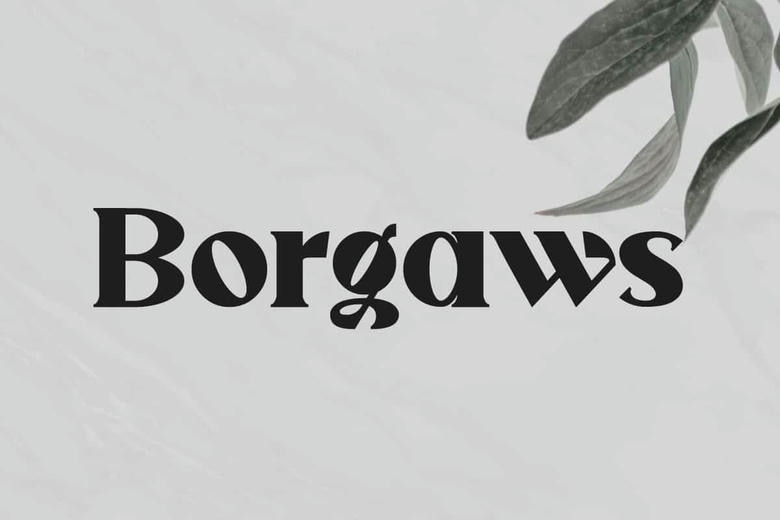
Borgaws Font
Borgaws is a unique and bold serif display font with a sharp taper. This font is suitable for those of you who want to add a unique impression to your design, even with only thin elements. It would be good for brochure, label, logo design, magazine cover, mockup template, packaging, poster, quotes, t-shirt, website, and more!
Borgaws includes full set for Uppercase and Lowercase Basic Characters, Numbers, Punctuation and Symbols. The advantage of this font is that it is very suitable for advertisement, bakery, beauty product, boutique, event or wedding organizer, fashion, photography, restaurant, spa, travel agency, etc.
Borgaws Serif Font